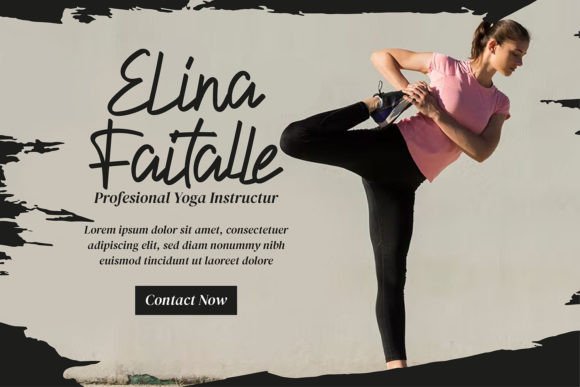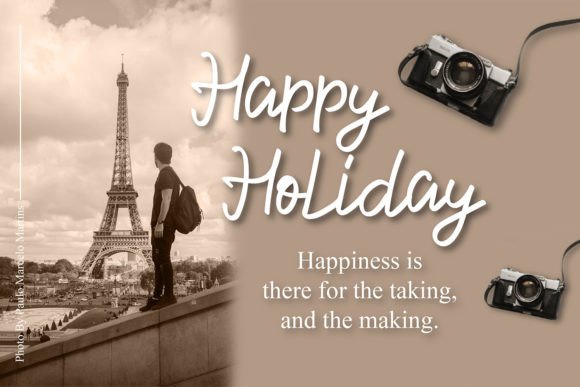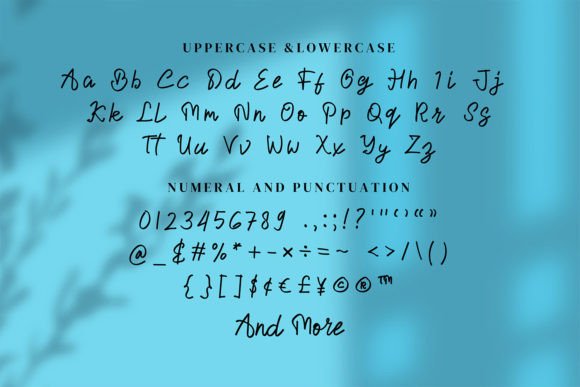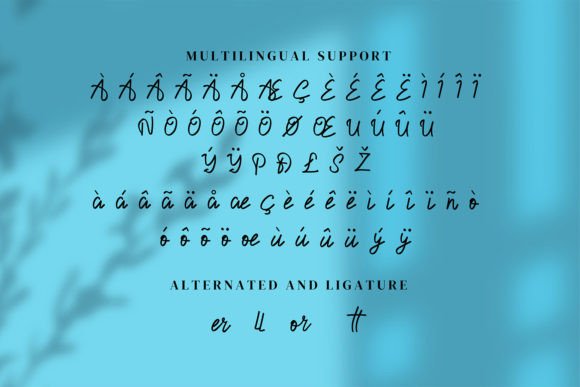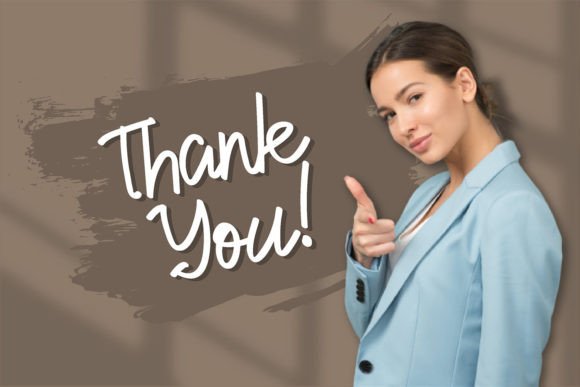
Desttinate Font: A Beautiful and Refined Script Font
Desttinate is a stunning script font that exudes elegance and sophistication. Its refined and modern look makes it perfect for various design projects, including logos, branding, invitations, stationery, wedding designs, social media posts, and more!
My Honest Review of Desttinate Font
- ✨ Elegant and refined script style
- 💫 Beautifully crafted to add a touch of sophistication to any design
- 🎨 Versatile and can be used for various design projects
- 🤔 Limited availability of stylistic alternates (but still offers a range of OpenType features)
- ⚠️ May require manual kerning for optimal results
The Story Behind Desttinate Font
Desttinate Font was crafted with love and care by a talented type designer who aimed to create a beautiful, refined script font that would meet the needs of designers and crafters. The designer’s inspiration came from classic calligraphy and modern typography, resulting in a unique and elegant font that’s perfect for various design projects.
Q: What type of projects is Desttinate Font best suited for?
A: Desttinate Font is versatile and can be used for various design projects, including logos, branding, invitations, stationery, wedding designs, social media posts, and more!
Q: Does Desttinate Font support OpenType features?
A: Yes, Desttinate Font offers a range of OpenType features, including ligatures and stylistic alternates.